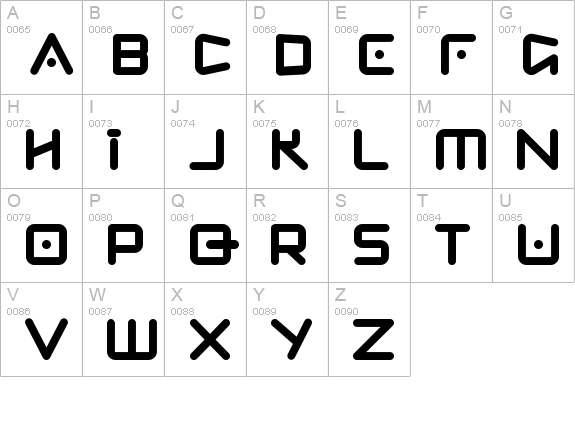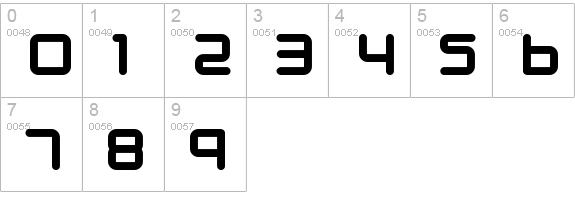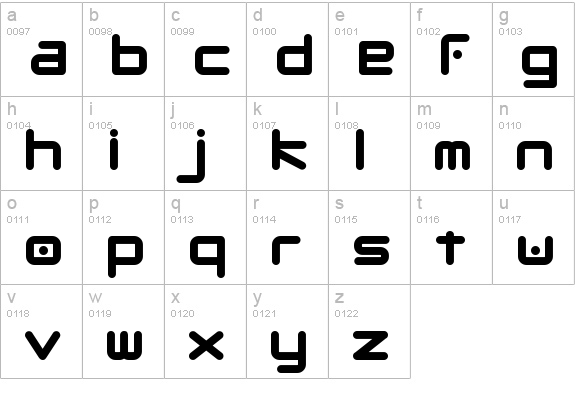
Introducing the captivating fRiNgE font - a unique and stylish typeface that exudes a sense of creativity and individuality. With its edgy and unconventional design, fRiNgE is perfect for making a bold statement in your projects. This versatile font is ideal for various design purposes, from branding to posters to social media graphics. What makes fRiNgE even more appealing is that it is completely free to download at FontsMarket.com. Yes, you read that right - this eye-catching font is readily available for you to enhance your designs without any cost. Don't miss out on the opportunity to add a touch of flair to your creations with fRiNgE font. Download it now and let your creativity shine!